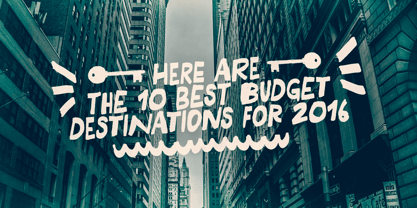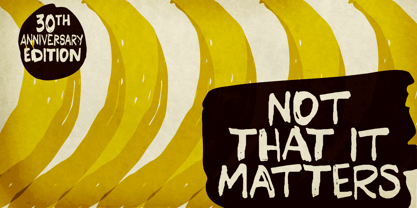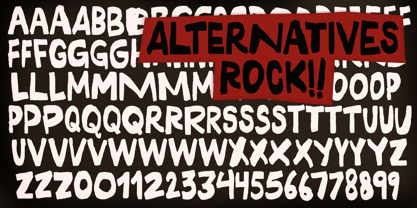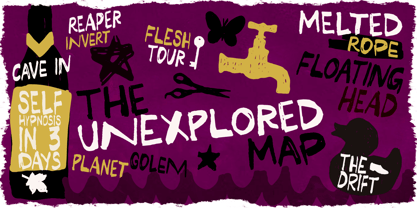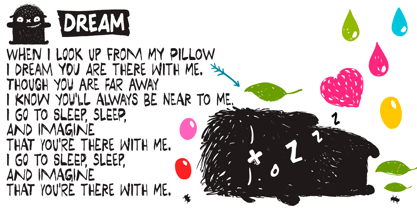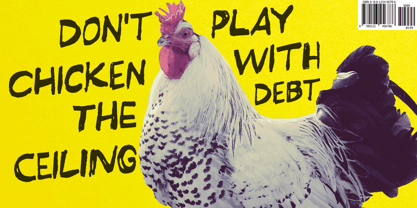
Somehand Font
This Somehand Font is perfect for handwritten logo designs, personal branding projects, artisan craft labels, handmade product packaging, authentic bakery signage, personal blog headers, casual greeting cards, organic market materials, creative studio branding, and genuine human-centered communications.
What makes this Somehand Font exciting is its authentic handwritten character that captures the genuine warmth and personal touch of real human handwriting. The font features natural letterforms with organic variations and personal quirks that create immediate connection and authentic appeal. Its human character and personal authenticity make it ideal for brands seeking to communicate genuine care, personal attention, and handcrafted quality in artisanal and personal service markets.
The Somehand Font family includes regular and bold weights with handwritten alternates, natural ligatures, and personal variants. This comprehensive handwritten font family provides designers with authentic typographic tools to create personal, genuine compositions while maintaining the human character essential for artisanal and handcrafted brand communications.
The natural construction of Somehand Font showcases organically varied letterforms with personal characteristics that ensure authentic handwritten appeal across all applications. Its genuine appearance and human imperfections create memorable connections while maintaining the readability necessary for effective personal branding and artisanal business communication.
Professional designers appreciate how Somehand Font brings immediate authenticity and personal warmth to brand communications. The font's handwritten nature allows organizations to communicate genuine care and personal craftsmanship while maintaining the professional quality necessary for effective positioning in artisanal and personal service markets.
The personal appeal of Somehand Font makes it particularly effective for brands emphasizing handmade quality, personal attention, and authentic human connection. Its natural character resonates strongly with audiences who appreciate genuine craftsmanship, personal service, and businesses that prioritize human touch over mass production.